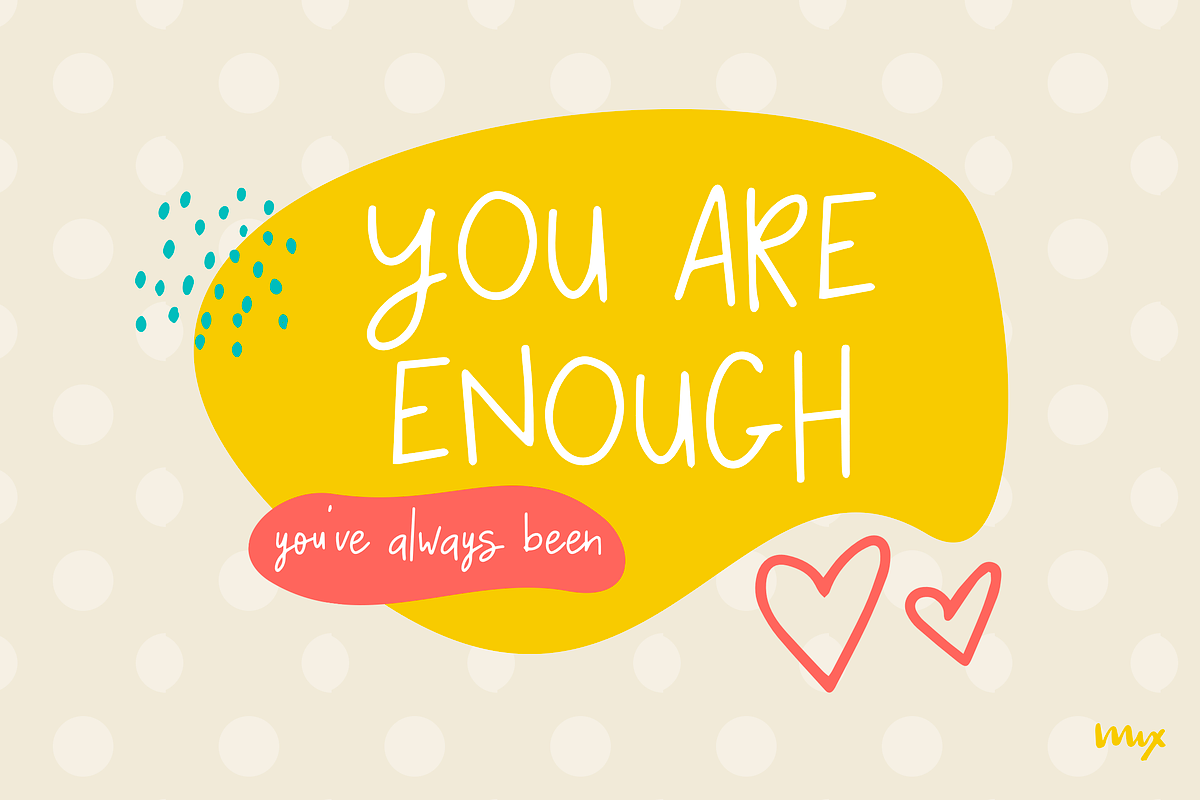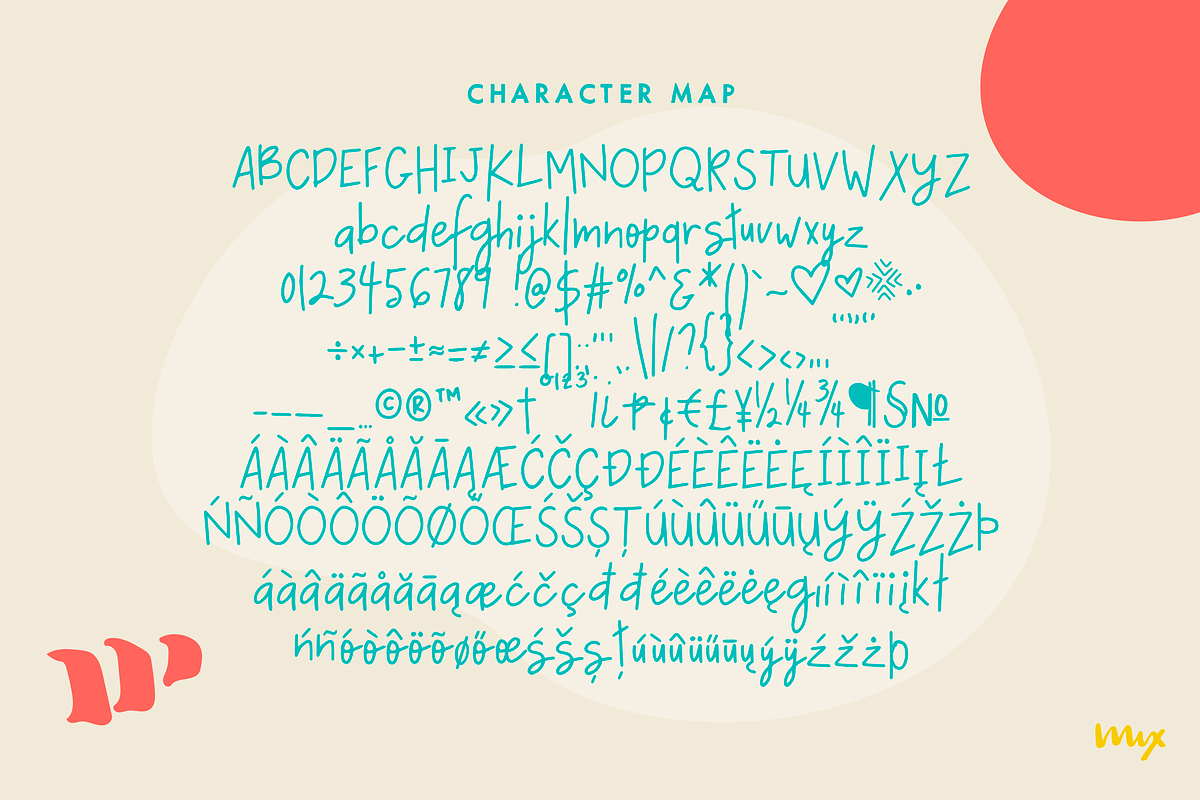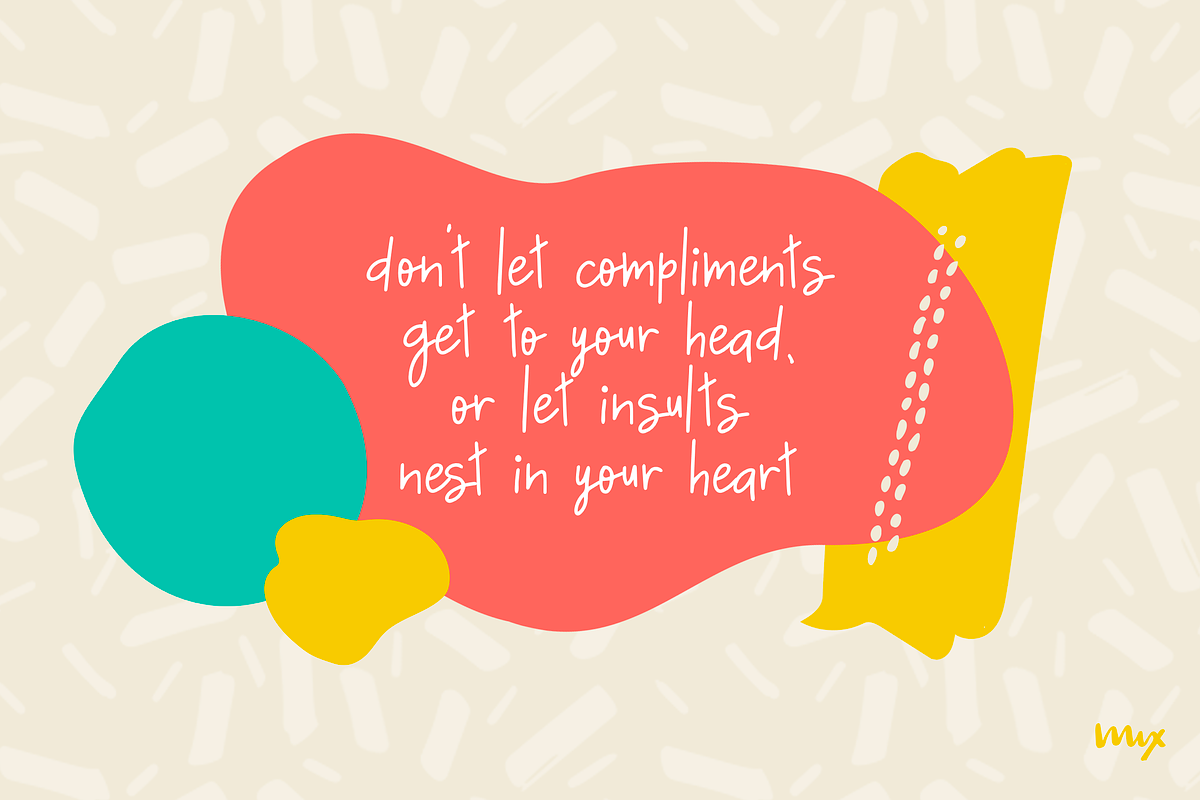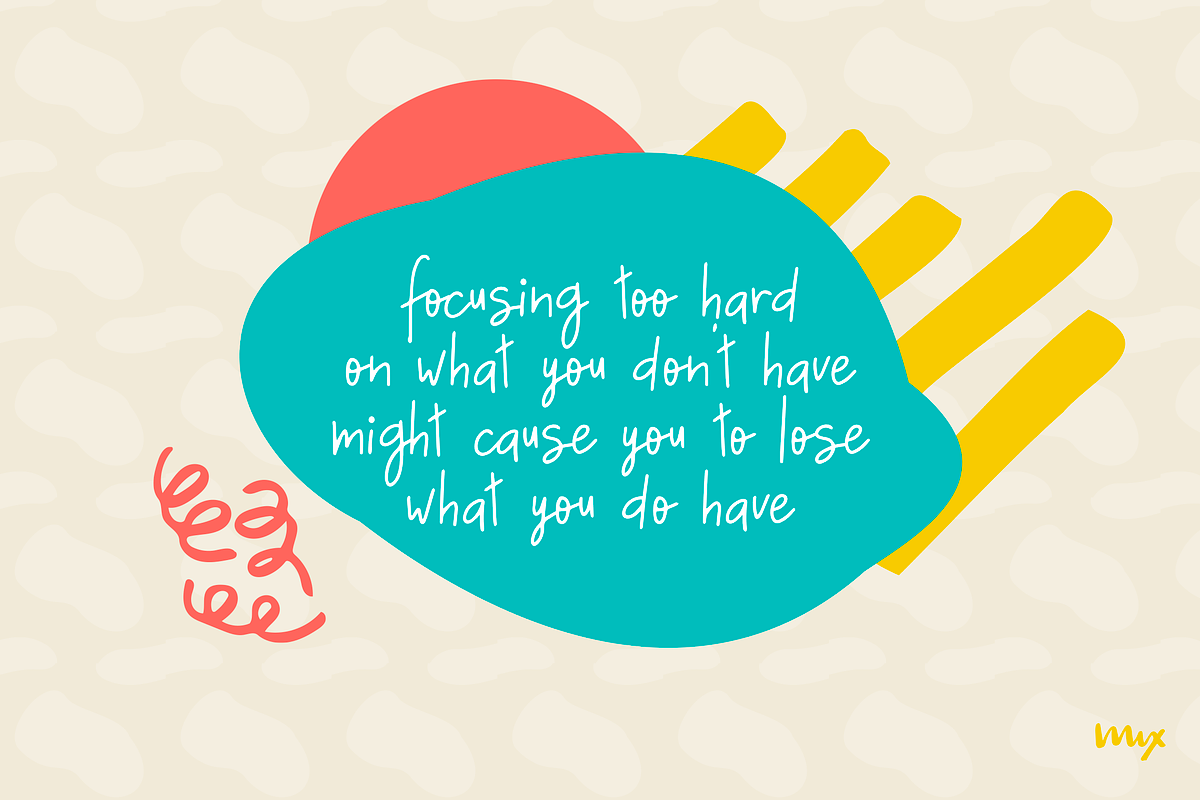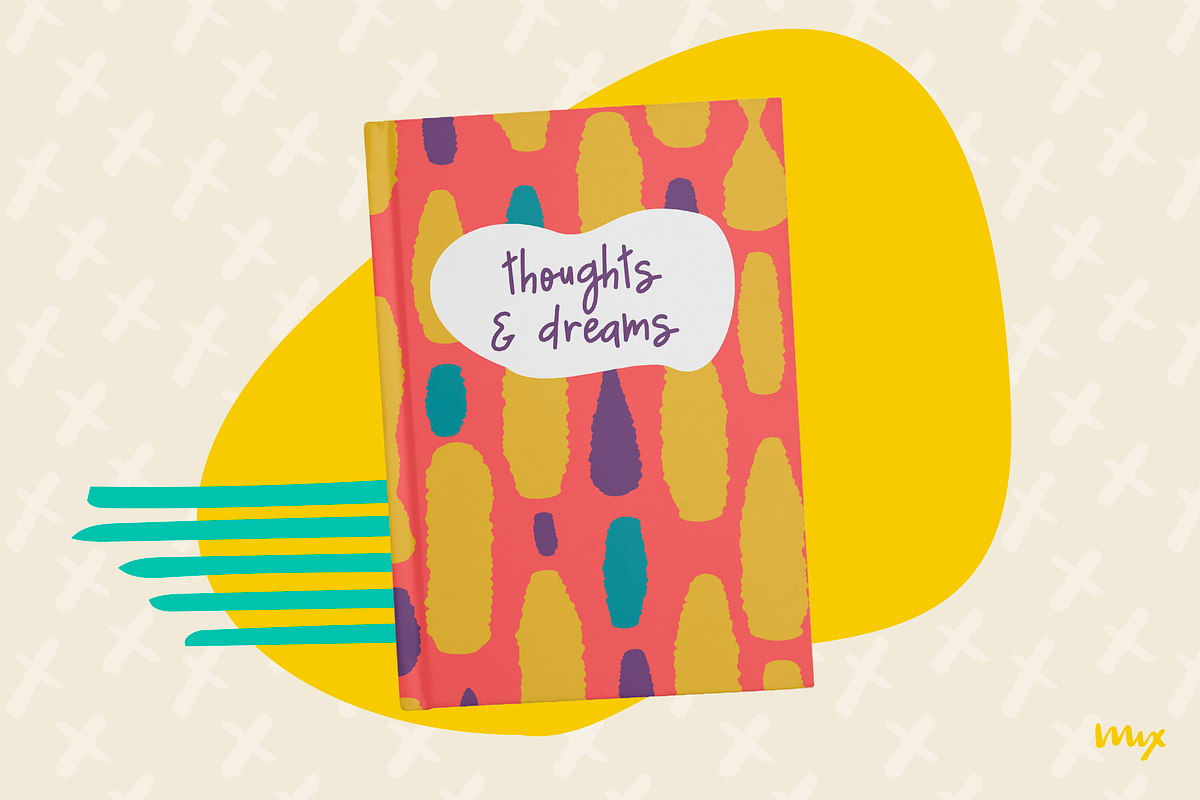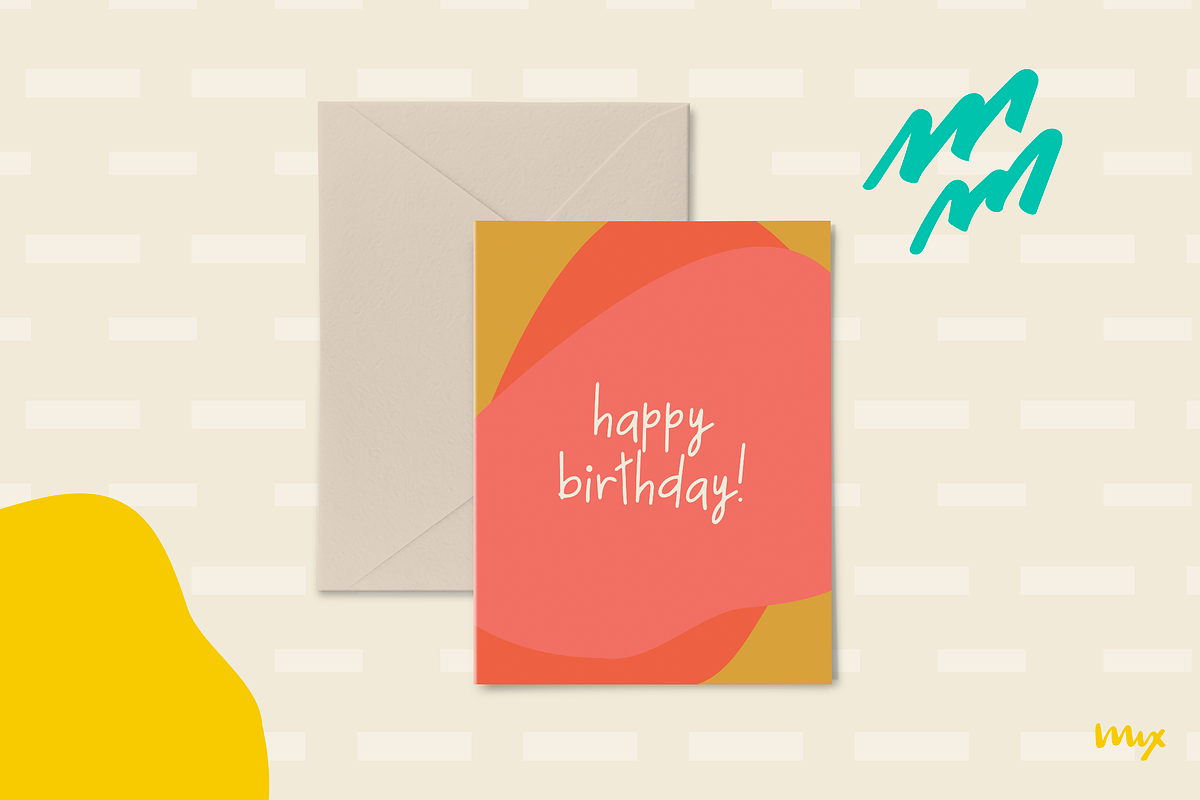
Sueno - A Monoline Semi-script
Looking for a font that's chic, stylish, and oh-so-slightly handwritten? Look no further than MIX SUENO! This monoline semi-script was crafted with care using an iPad Pro and Apple Pencil, and is the perfect addition to any design project. Whether you're creating invitations, social media graphics, or just sprucing up your website, MIX SUENO will bring a touch of sophistication and personality to your work. So don't hesitate - give MIX SUENO a try today!
0123456789 !@$#%^&()`~♥❤✿•·
÷×+−±≈=≠≥≤[]:;'",.|/?{}“”‘’-–—…©®™«»°²³¡¿₱¢€£¥½¼¾¶§№†
ÁÀÂÄÃÅĂĀĄÆĆĈČÇÐĐÉÈÊËĖĒĘÍÌÎÏĪĮŁŃÑÓÒÔÖÕØŐŒŚŠȘȚÚÙÛÜŮŰŪŲÝŸŹŽŻÞ
áàâäãåăāąæćĉčçðđéèêëėēęıíìîïįłńñóòôöõøőœśšșțúùûüűūųýÿźžżþß